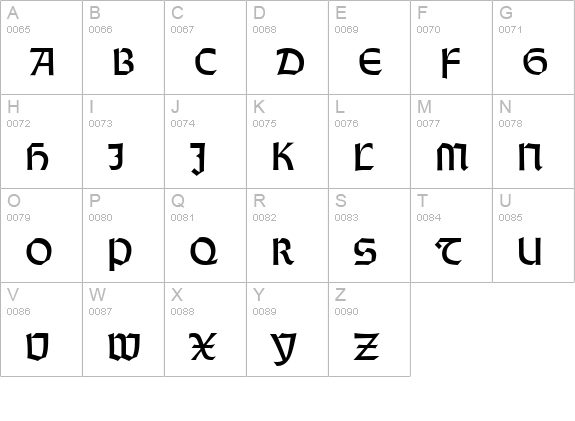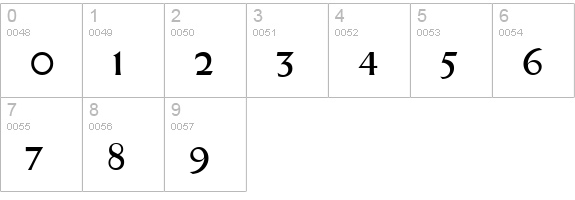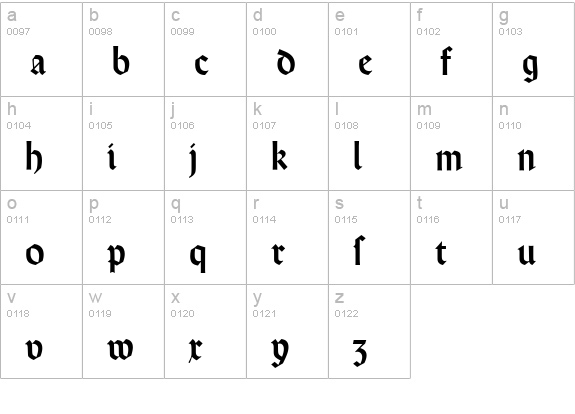
Rundgotisch-Regular is the standard, neutral variant in the Rundgotisch typeface family \xE2\x80\x94 well suited to general body text, paragraphs, and standard typographic work.
Rundgotisch-Regular font is a stunning display typeface that exudes elegance and sophistication. With its intricate Gothic-inspired design, this font is perfect for adding a touch of medieval flair to your projects. Its sharp serifs and decorative elements make it a standout choice for titles, headlines, and branding materials. What sets Rundgotisch-Regular font apart is not only its timeless appeal but also the fact that it is available for free download at FontsMarket.com. This means you can easily incorporate this unique font into your designs without breaking the bank. Whether you're working on a historical project, a fantasy-themed layout, or simply want to add a touch of drama to your work, Rundgotisch-Regular font is sure to make a bold statement. Download it today and unleash your creativity with this exceptional typeface.